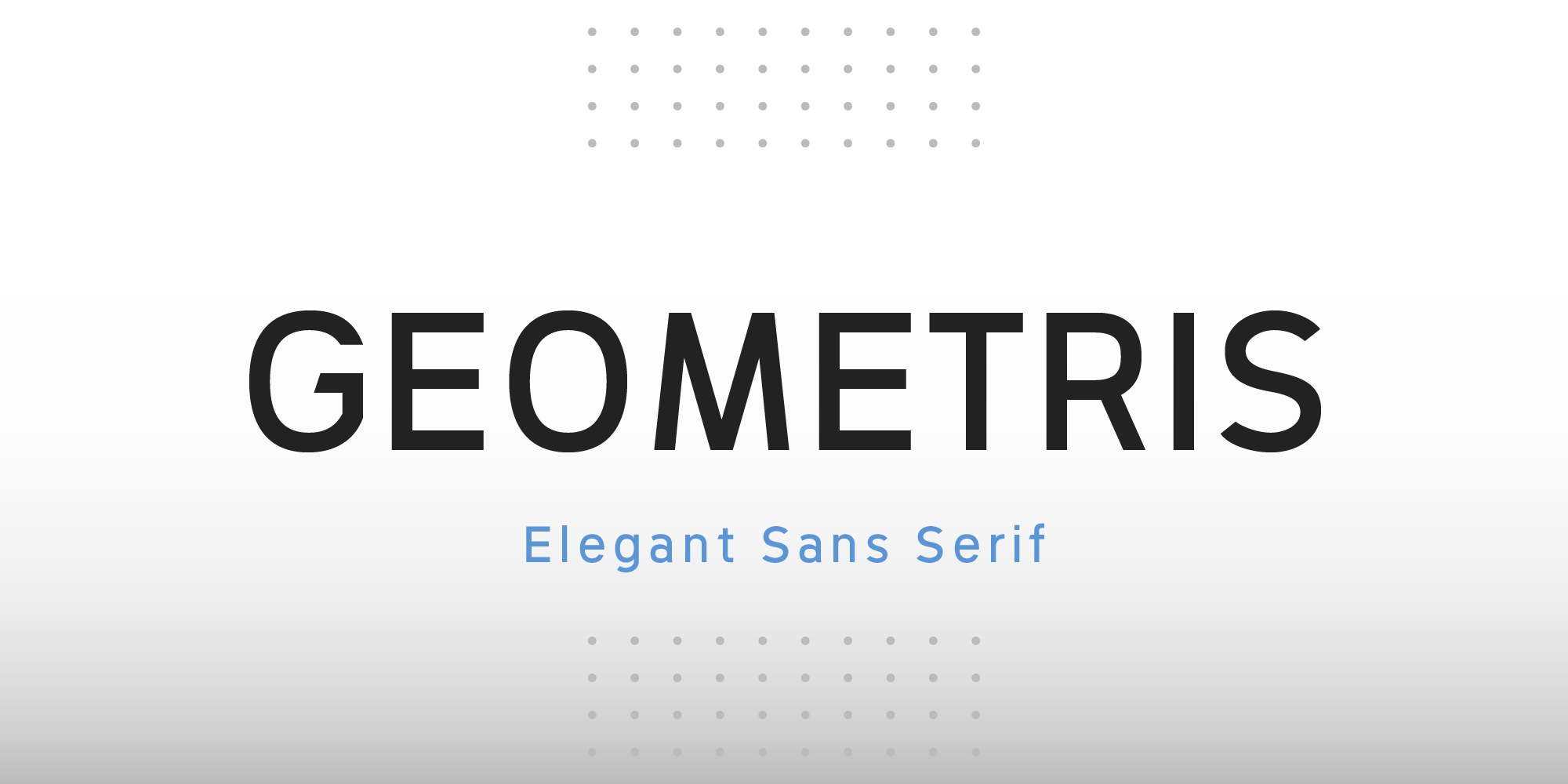
Geometris Font Free Download is a modern, geometric typeface that brings a clean and structured look to your design projects. Inspired by simple shapes and balanced proportions, this font is perfect for logos, branding, headlines, posters, and editorial layouts. Its sharp edges and symmetrical letterforms make Geometris Font ideal for designers who want a minimalist yet bold aesthetic.
With Geometris Font Free Download, you get a complete set of uppercase, lowercase, numbers, and essential punctuation, offering flexibility across various creative applications. Whether you're crafting a corporate identity, a website header, or product packaging, this font ensures clarity and professionalism without sacrificing style. Its versatility makes it equally effective in print and digital designs.
Enhance your creative toolkit with Geometris Font Free Download and bring a modern, geometric flair to your work. This stylish typeface will help you create clean, impactful visuals that capture attention and communicate your message effectively.